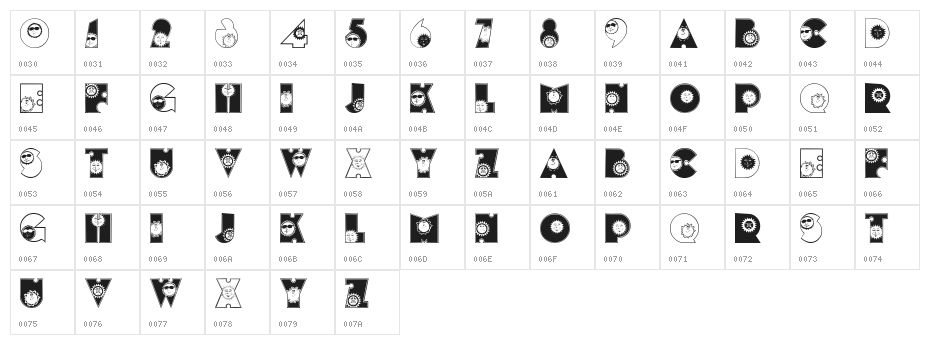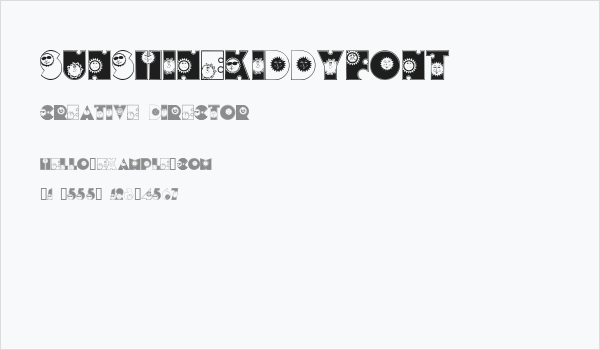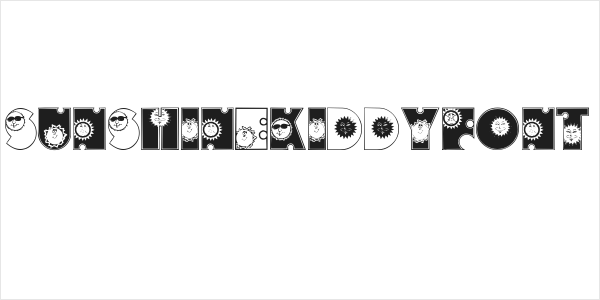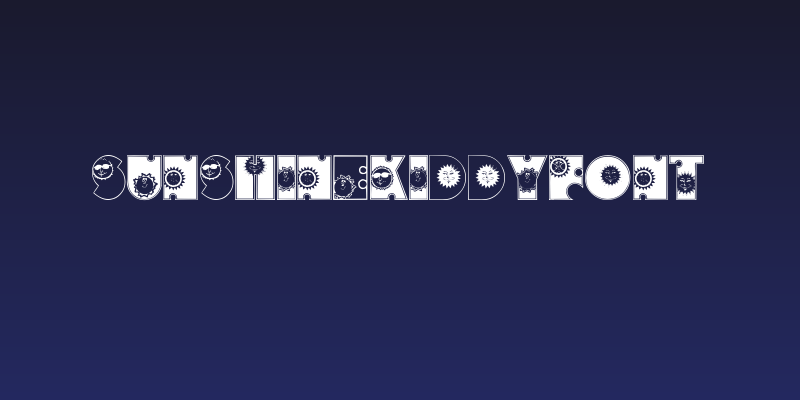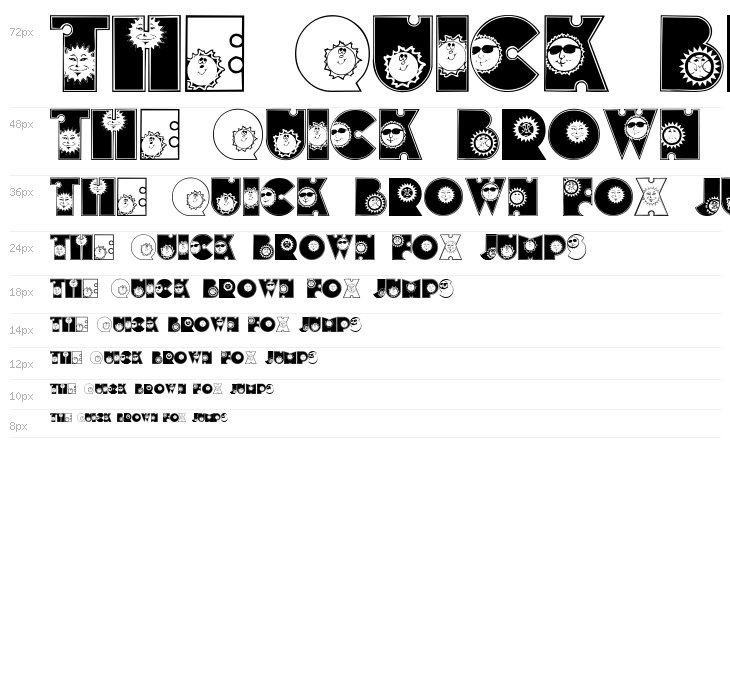
SunshineKiddyFont Font
SunshineKiddyFont Description
This playful and whimsical font features bold, blocky letters with unique sun-themed illustrations integrated into each character. The uppercase and lowercase letters are designed with a consistent style, incorporating cheerful sun faces and rays that add a lively and fun element to the text. The numbers follow the same theme, ensuring a cohesive look across all characters. The font's design is highly decorative, making it ideal for projects that require a touch of creativity and joy. Its distinct style captures attention and conveys a sense of warmth and happiness.
| Proposed Projects | Ideal for children's books, playful branding, summer event posters, and educational materials. |